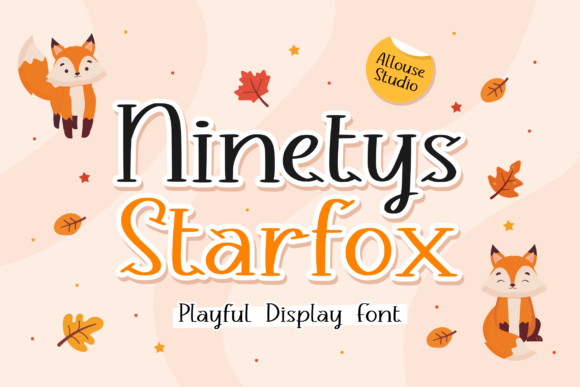
Step into a world of captivating typography with Ninetys Starfox, an enchanting display font that exudes childlike charm and effortless readability. Designed by the creative minds at allouse.studio, this font carries the essence of boundless friendliness, making it the perfect choice for injecting personality into your creative projects.
Ninetys Starfox is more than just a font; it's an invitation to let your imagination soar. Its playful and approachable nature lends itself seamlessly to a myriad of applications, from whimsical crafts to striking digital designs. Whether you're crafting handmade cards, captivating presentations, or creating eye-catching digital content, Ninetys Starfox has the versatility to elevate your designs to new heights.
Experience the magic of Ninetys Starfox and unlock a world of creative possibilities. Its endearing character adds a touch of warmth and approachability to any project, leaving a lasting impression on your audience. Dive into the realm of endless creativity with Ninetys Starfox, the font that captures the essence of carefree joy and boundless imagination.